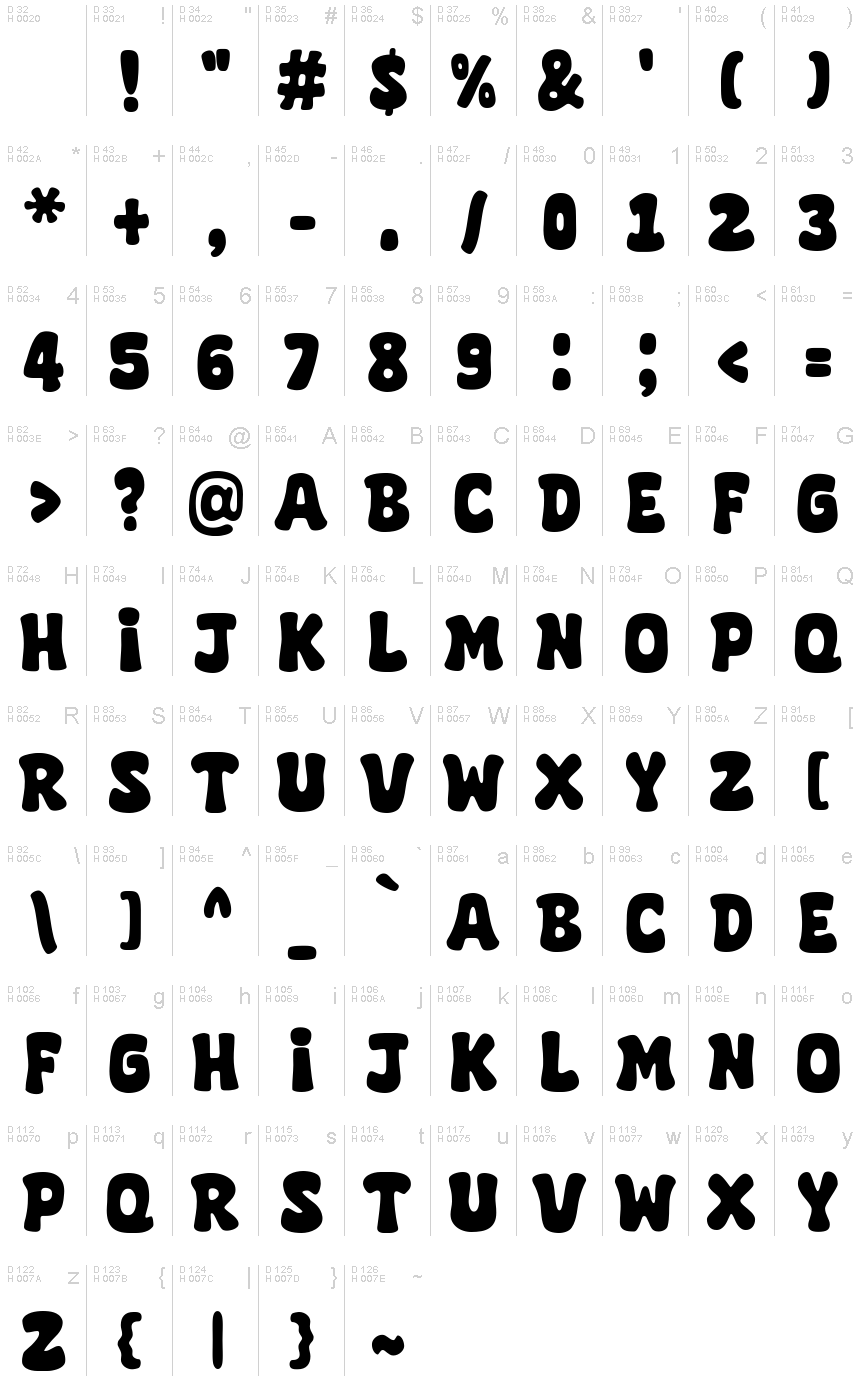
Super Brain
Super Brain, a captivating display font crafted by the talented designer fsuarez913, exudes a delightful and whimsical charm. This bold, cartoon-inspired typeface boasts a playful, organic aesthetic, with its rounded edges and dynamic letterforms inviting a sense of playfulness and energy. The font's distinctive character and visual flair make it an eye-catching choice, seamlessly blending a touch of carefree exuberance with a strong, confident presence.
The versatility of Super Brain allows it to shine across a wide range of design applications, from vibrant branding and packaging to attention-grabbing promotional materials and playful editorial layouts. Its bold, expressive nature lends itself well to headings, titles, and attention-grabbing elements, effortlessly drawing the viewer's gaze and infusing projects with a sense of fun and enthusiasm.